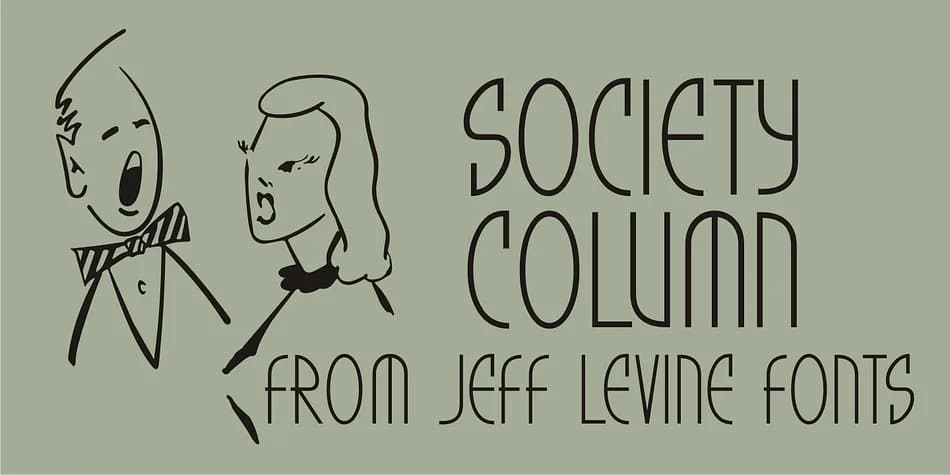
About SOCIETY COLUMN JNL Font
Society Column JNL by Jeff Levine Fonts is a thin, geometric Art Deco typeface rooted in 1938 Hollywood glamour, with letterforms sourced from a film title card and its name drawn from the newspaper society columns of the era. These columns chronicled the lives and escapades of the wealthy and well-connected, and that historical specificity is baked into every letter. The stylized forms capture the genre's elegance without descending into pastiche.
This typeface excels when you need authentic period styling that feels rooted in the past. Vintage wedding invitations gain immediate credibility with these letterforms. Jazz-age event posters, retro menu design for upscale restaurants, Art Deco-inflected packaging for artisanal beauty products, and theatrical productions set during the interwar years all benefit from this font's refined restraint. The thin weight ensures nothing feels heavy or overwrought, keeping the design breathable and sophisticated.
SOCIETY COLUMN JNL Font is a decorative font that shines as a display or heading face. Pair it with a clean sans-serif or serif font for body text β the contrast creates a clear hierarchy while the two styles stay balanced and easy to read.